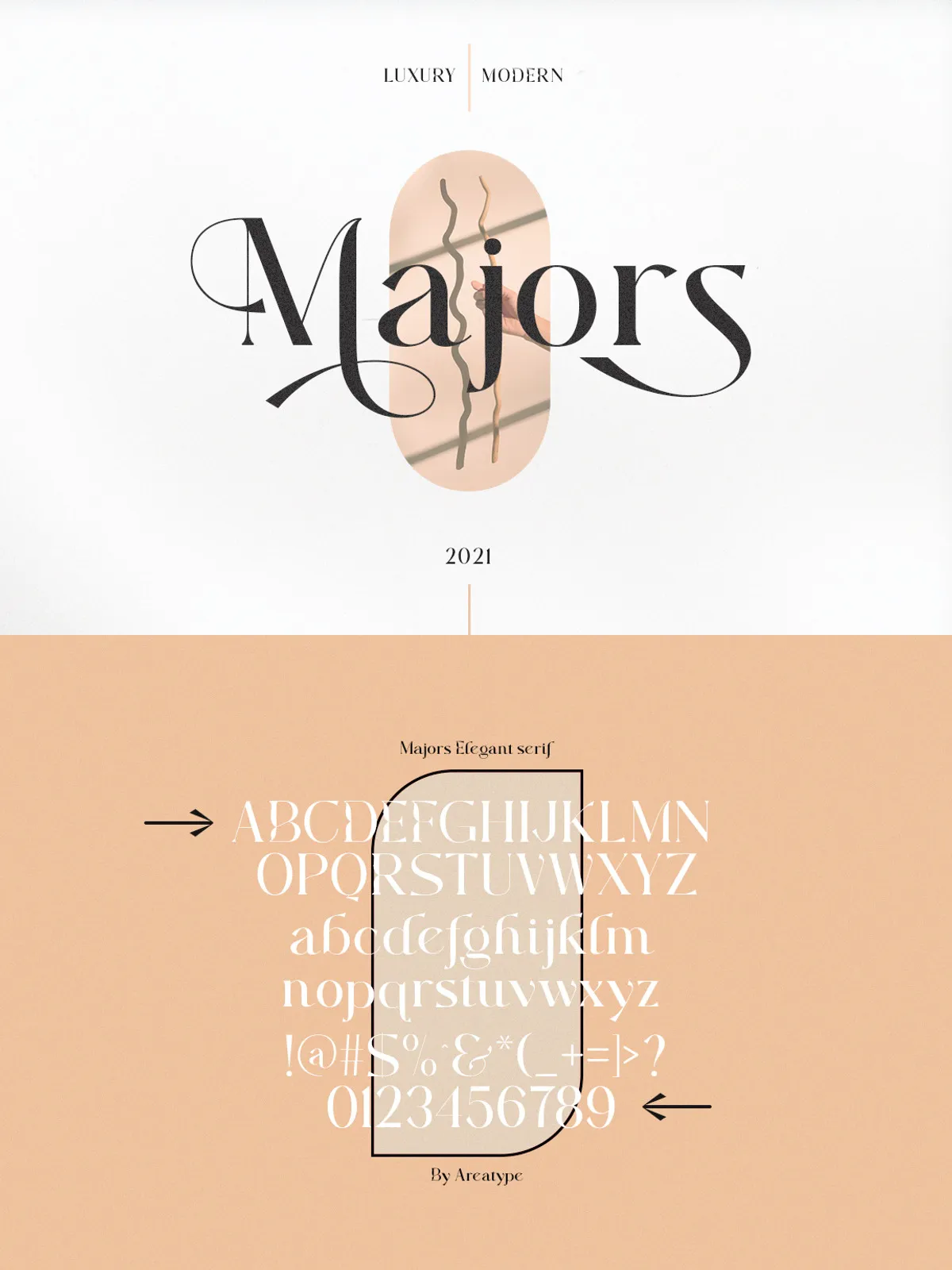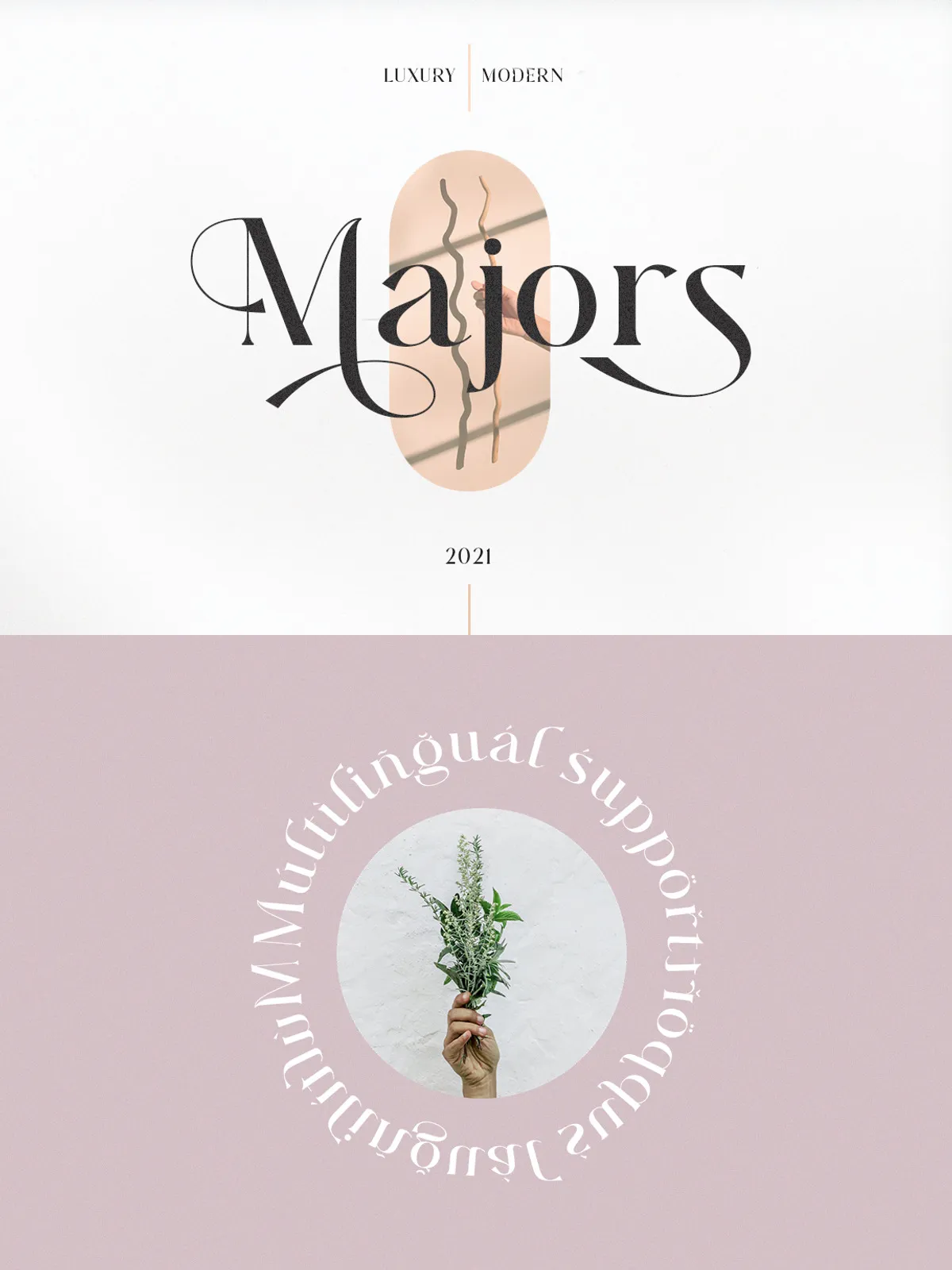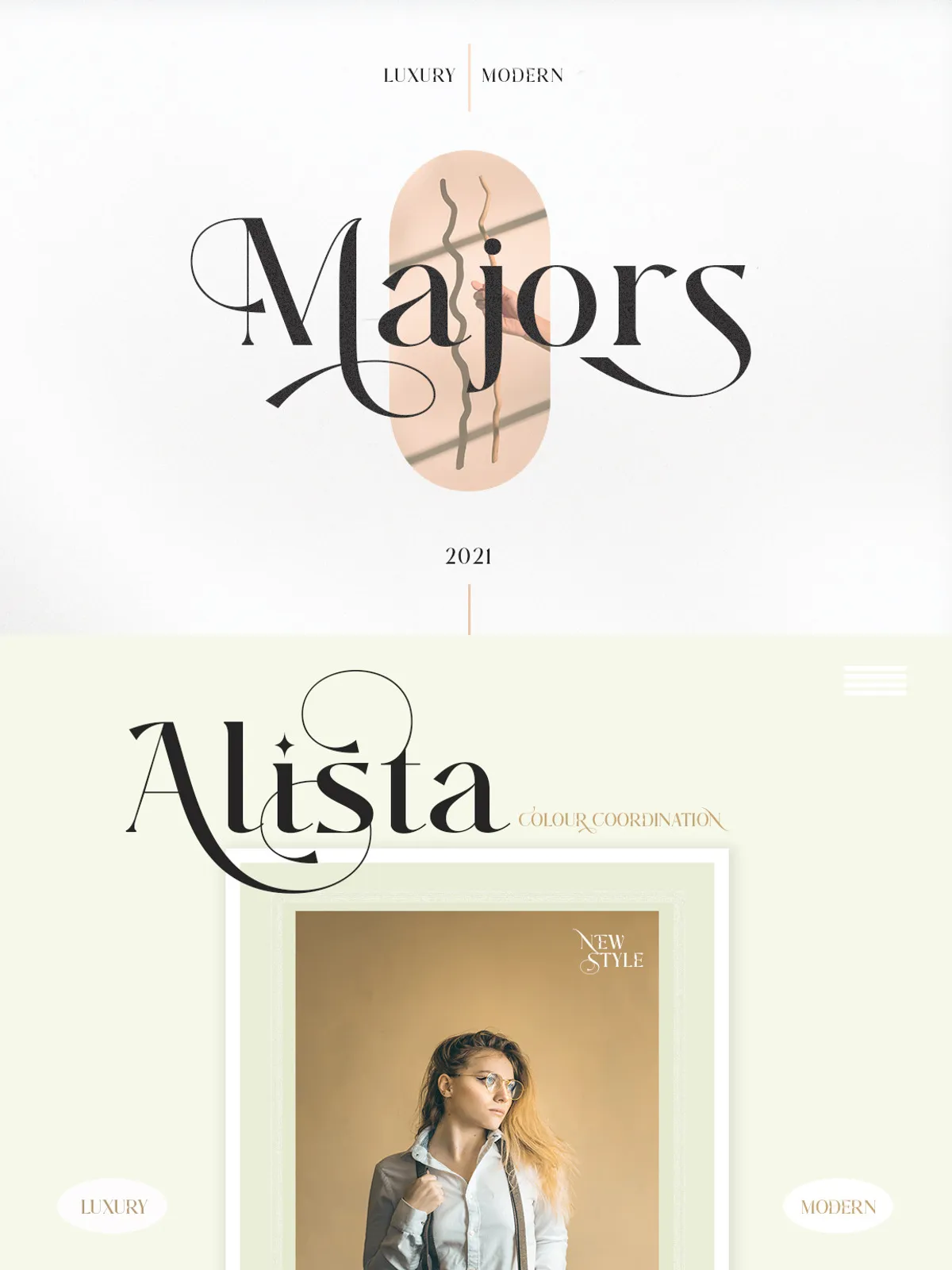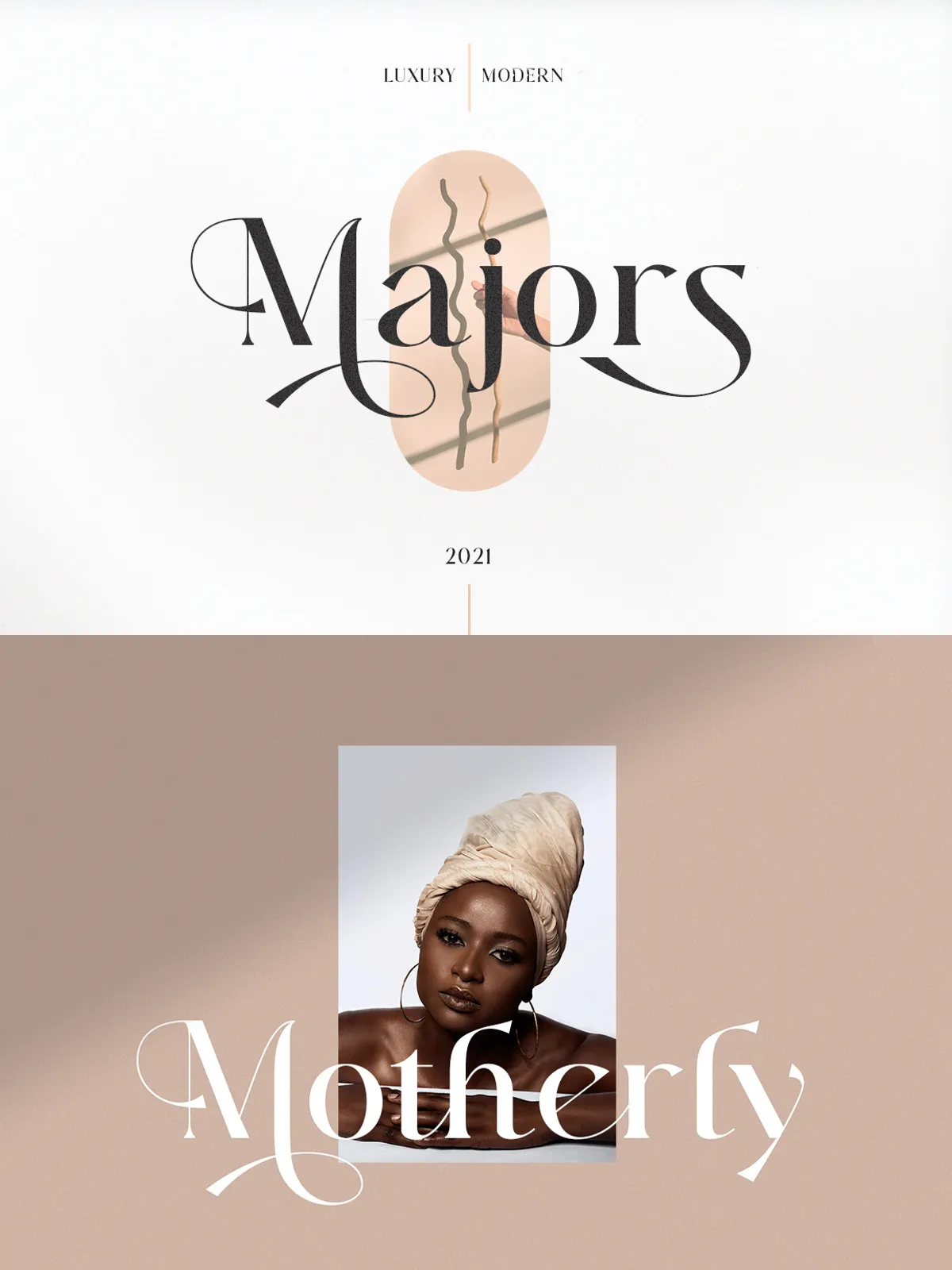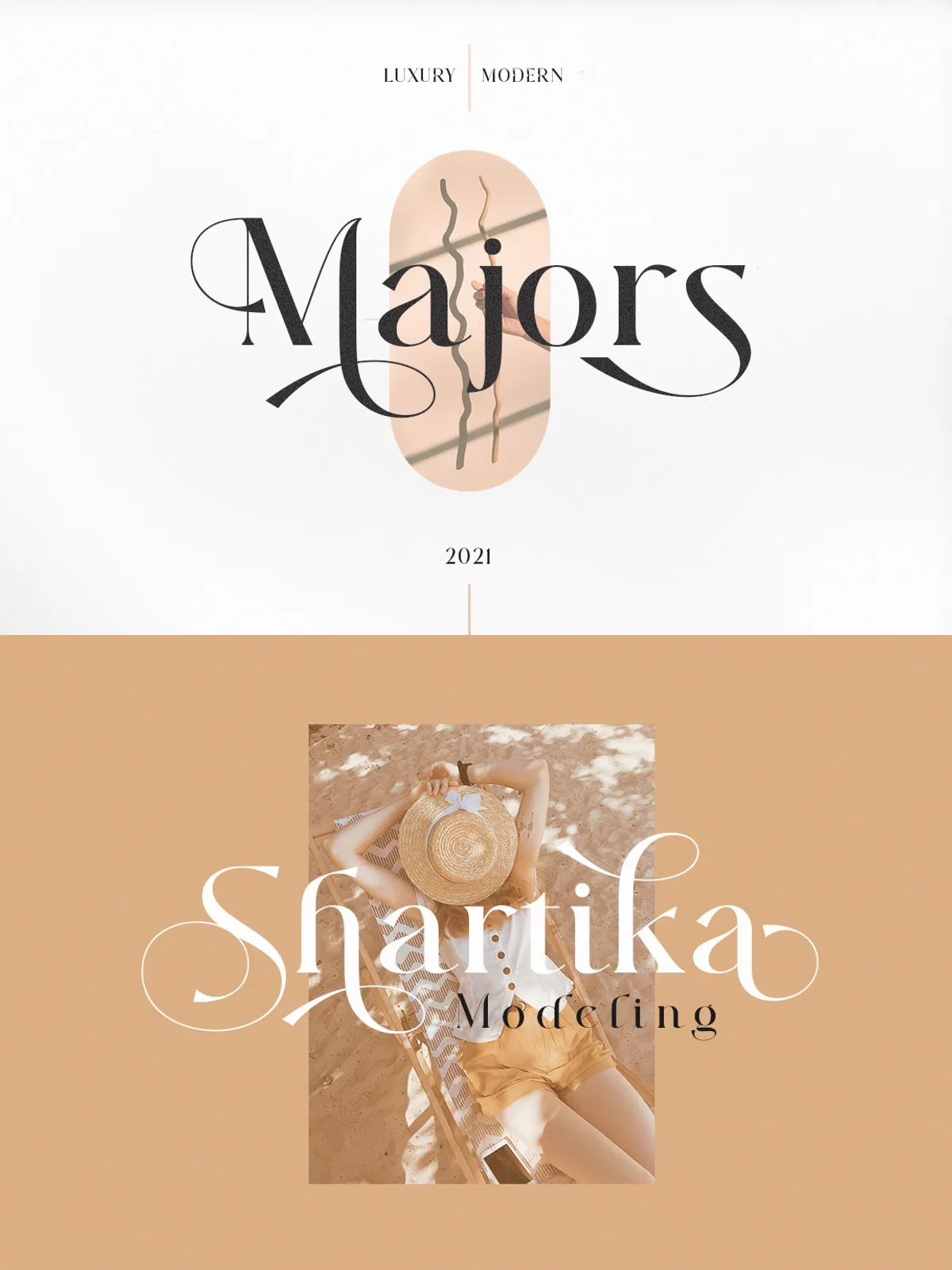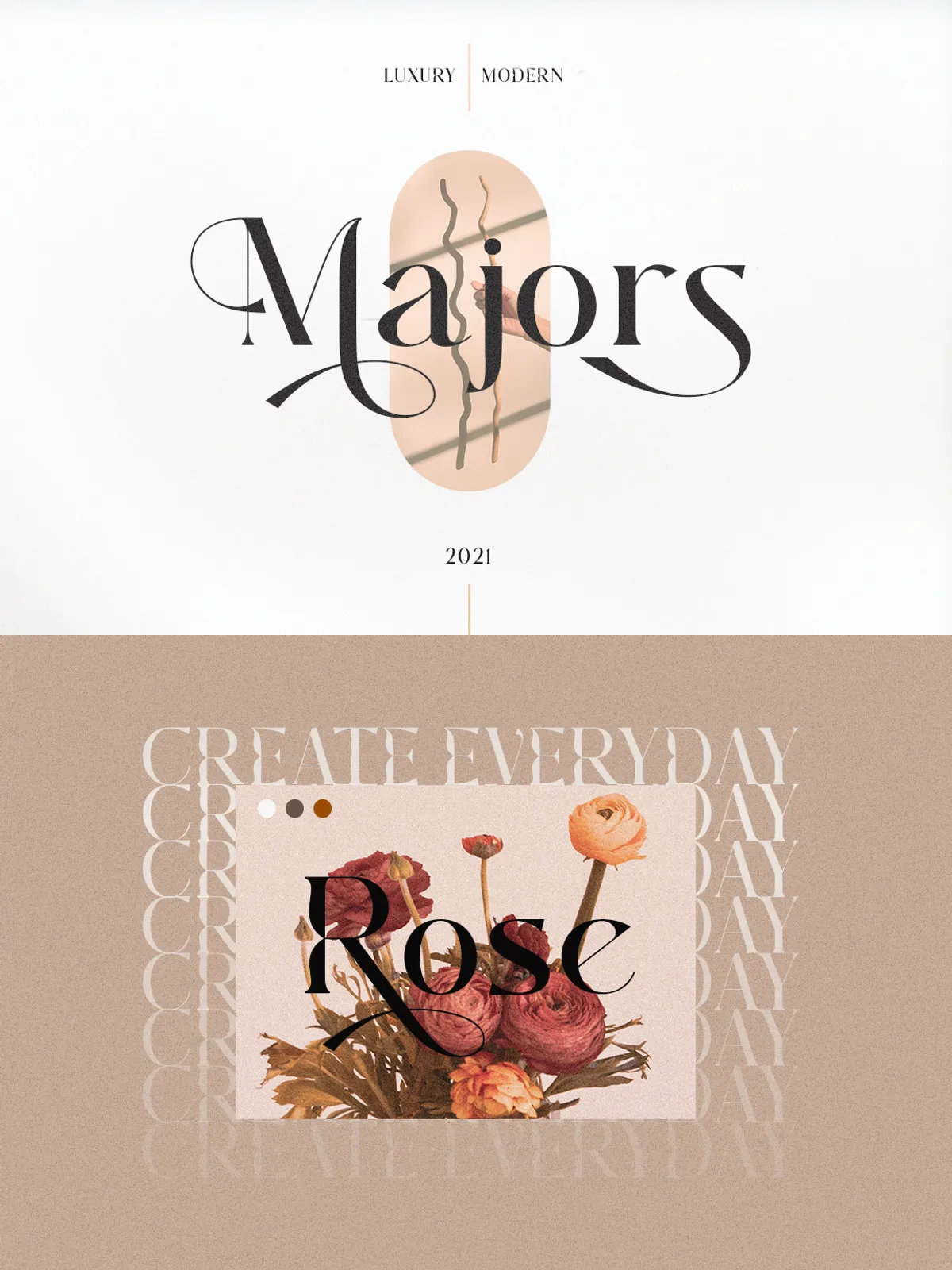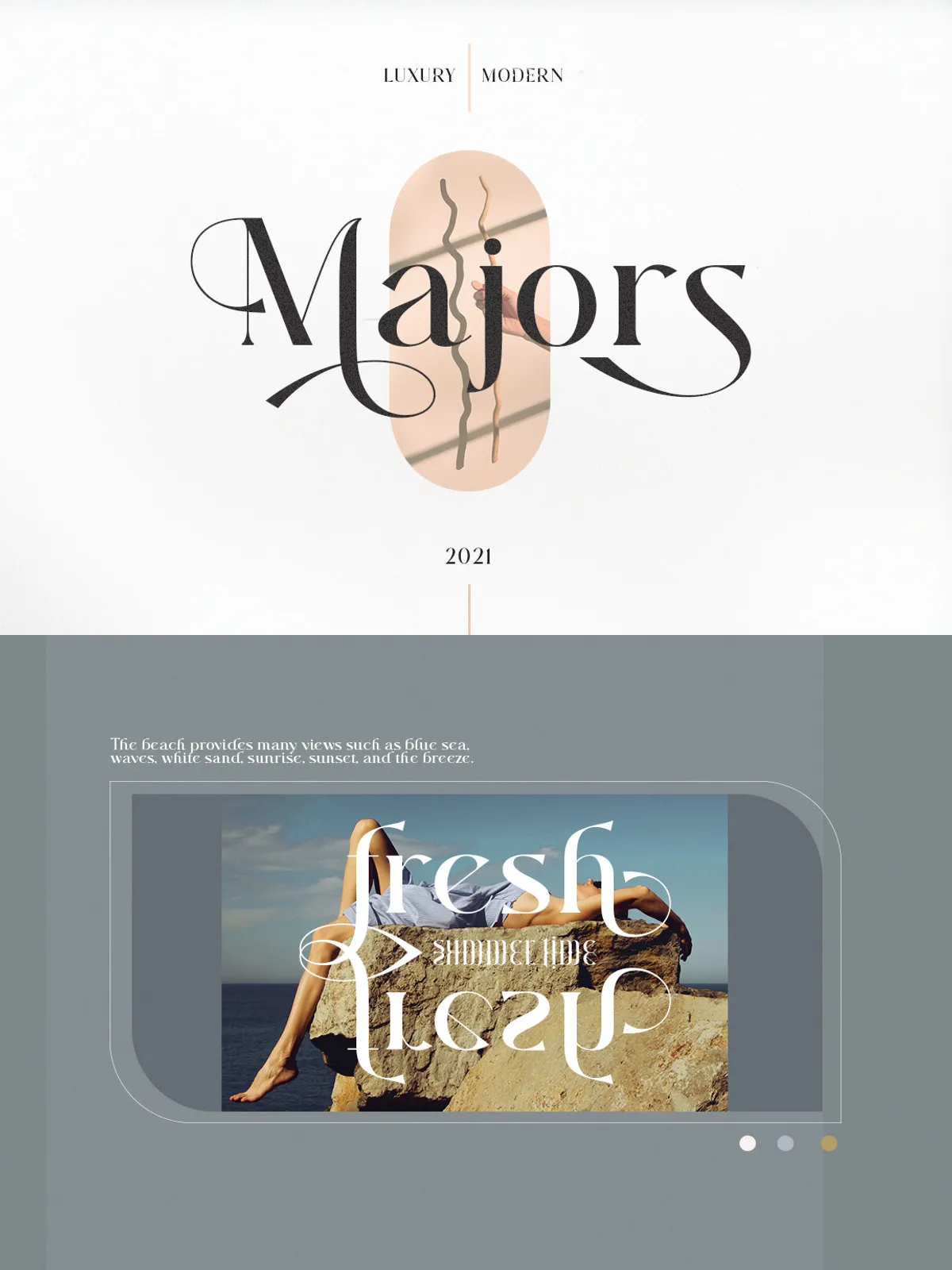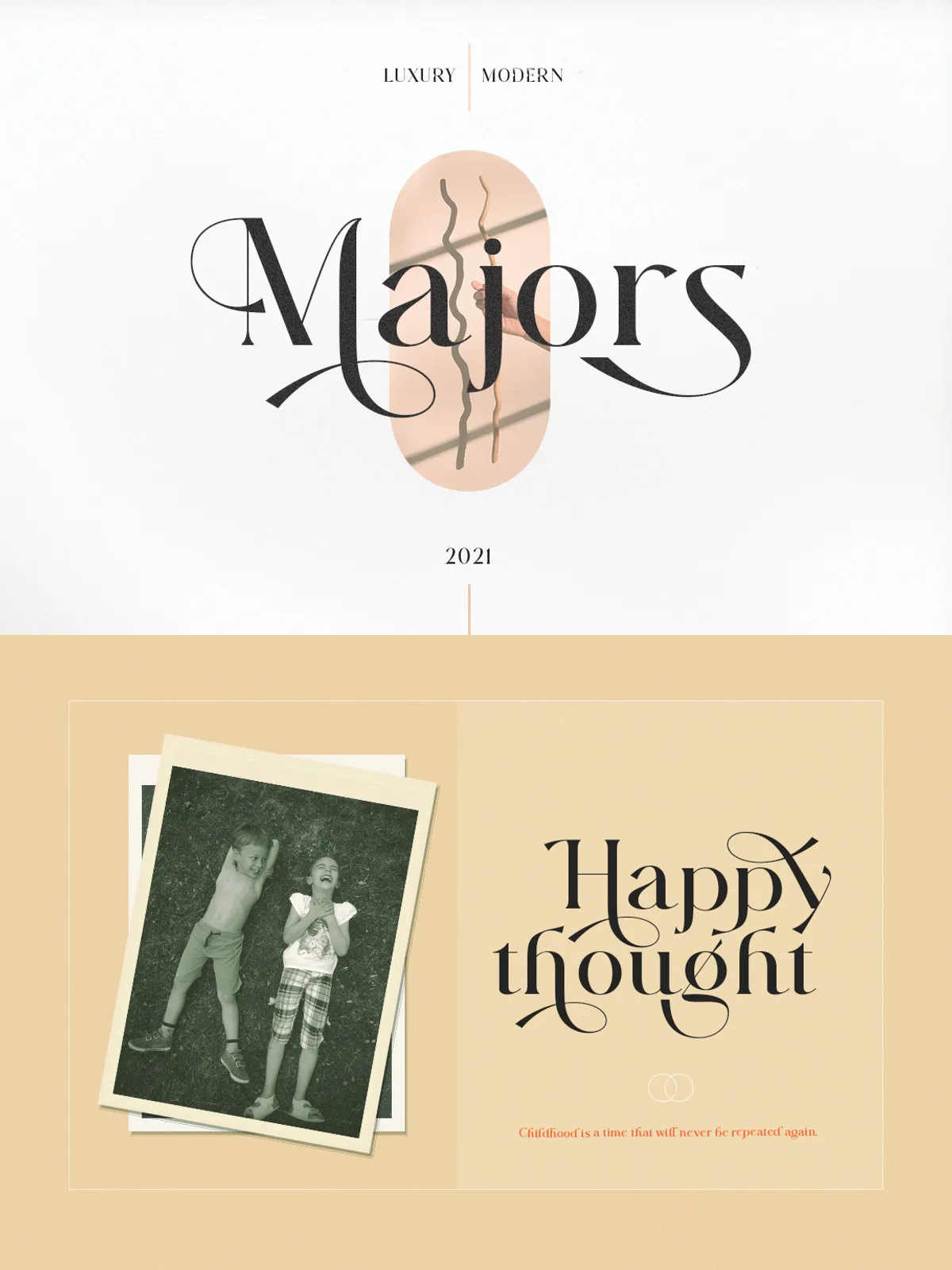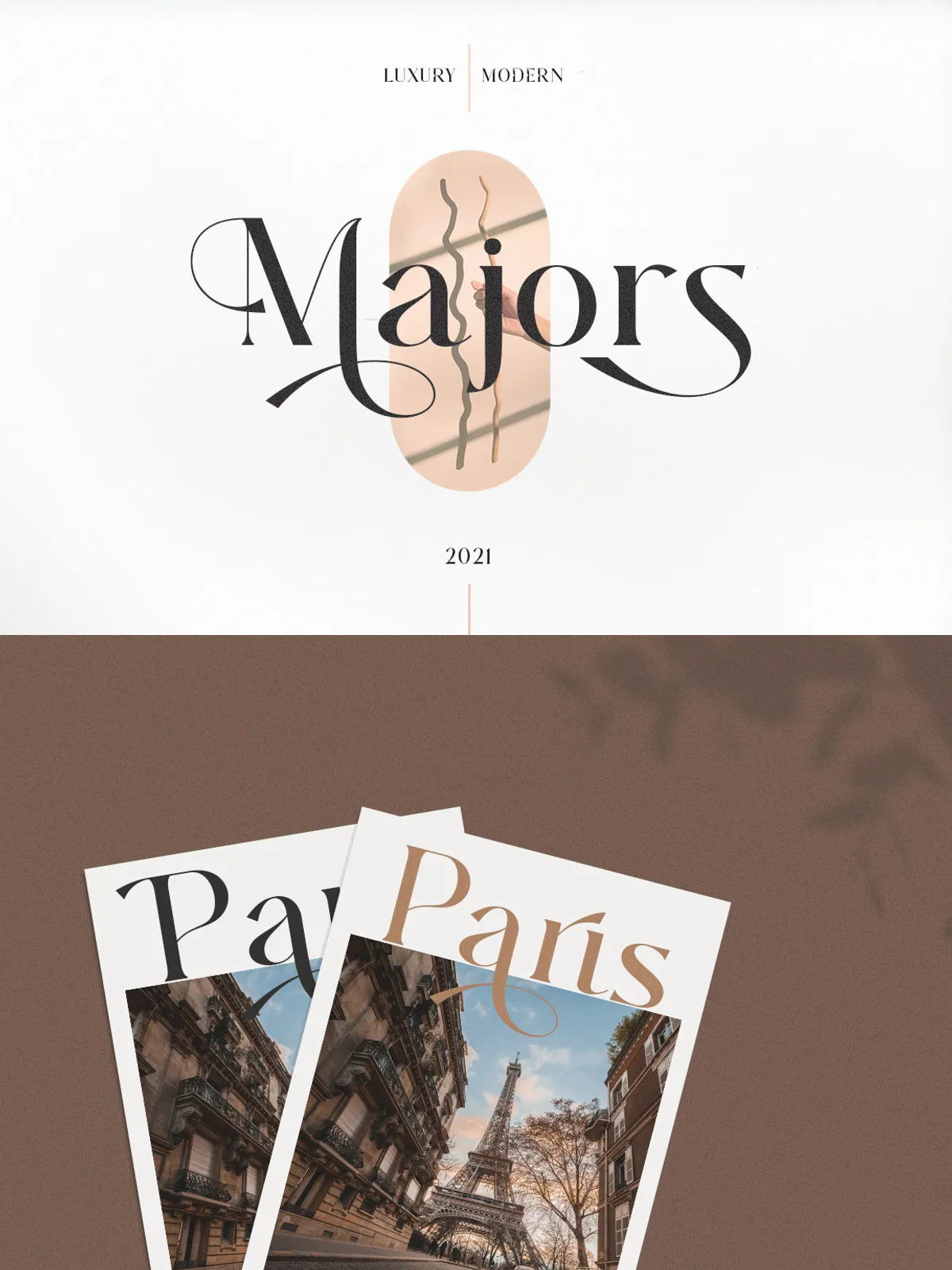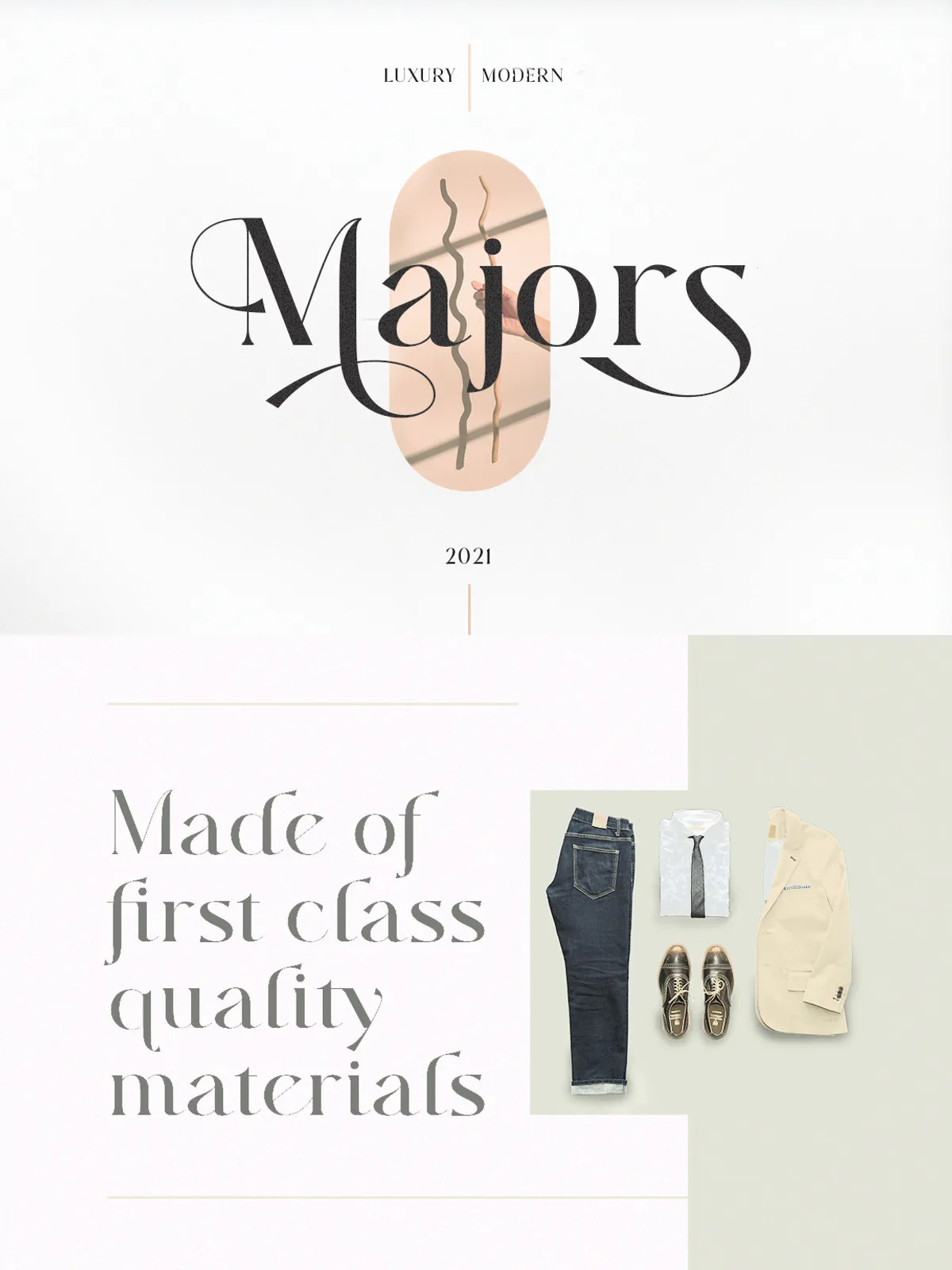
Majors is a refined and flexible display typeface designed to perform across a wide range of design projects. Whether you are creating striking magazine imagery, elegant wedding invitations, impactful brand identities, or large-format posters, Majors gives your work a polished, professional voice. The font balances classic proportions with contemporary details, enabling designers to achieve both timeless and modern aesthetics.
Numerals & Punctuation
Majors ships with a comprehensive set of numerals and punctuation marks suited for editorial typesetting, table layouts, pricing blocks, and data-driven designs. Numerals align visually with letterforms for strong typographic rhythm and clear numeric expression.
Stylistic Alternates & Ligatures
Activate OpenType features to reveal stylistic alternates and ligatures that add personality and refinement to headlines, logotypes, and invitation text. Alternates let you tailor letterforms to match your composition’s tone, while ligatures create smooth, professional joins for letter combinations that benefit from visual cohesion.
PUA Encoded Characters
Majors includes PUA-encoded glyphs to simplify access to special characters and alternates through common font utilities like Character Map (Windows) and Font Book (macOS). PUA encoding allows designers to insert decorative glyphs and alternates without relying on advanced OpenType controls.
Recommended Use Cases
Magazine and Editorial Design
Majors performs strongly in editorial contexts: headline treatments, pull quotes, and cover displays. Its clear, expressive shapes draw the reader’s eye and establish hierarchy in multi-column layouts. Combine Majors with a neutral body type for readable long-form content while letting Majors dominate the visual narrative.
Weddings and Invitations
Majors lends a refined, celebratory tone to wedding invites, event stationery, and programs. Use its alternates and ligatures to create bespoke typographic flourishes that elevate formal correspondence and printed keepsakes.
Branding and Identity
Majors offers the versatility needed for modern brand systems. Use it for logotypes, packaging headlines, tagline treatments, and signage. The font’s distinct personality helps brands stand out while remaining adaptable across media.
Poster and Display Work
For posters, billboards, and promotional art, Majors delivers strong legibility at large sizes and dramatic presence. Its balanced contrast and open counters reproduce well in print and on-screen, ensuring your message reads clearly from a distance.
Pairing
Pair Majors with a simple sans-serif or a low-contrast serif for supporting body text. A neutral partner preserves readability and allows Majors to function as the visual focal point without competing with dense paragraphs.